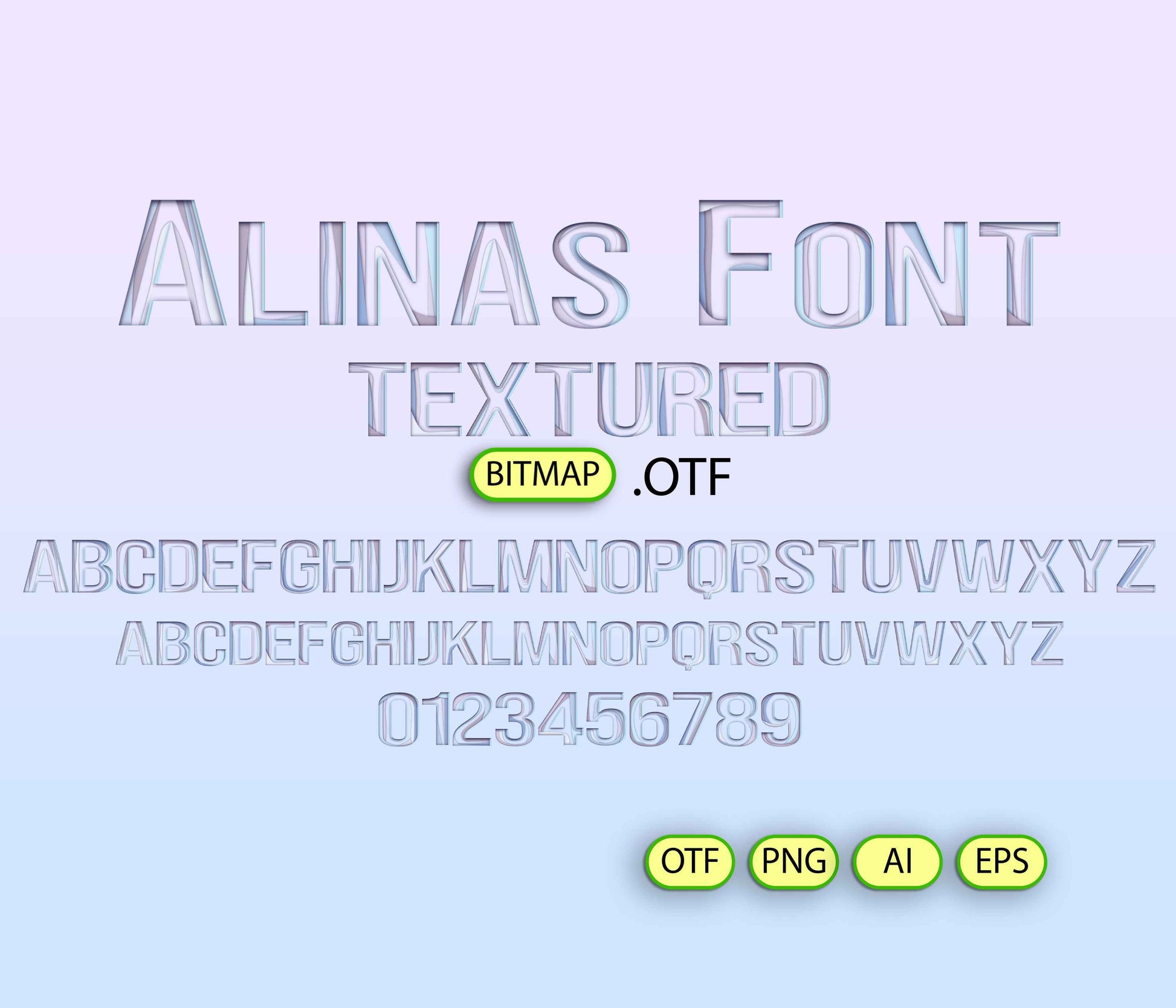
Paper Cut Elegance Font Textured
The Artistic Elegance of Paper Cut
Explore the delicate and intricate world of Paper Cut font, a typeface inspired by the refined art of paper cutting. This font embodies the precision and creativity of this traditional craft, where single sheets of paper are transformed into elaborate designs. Each character in the Paper Cut font is designed to reflect the clean lines, sharp edges, and the overall aesthetic elegance of paper art, making it perfect for projects that require a touch of sophistication and artistic detail.
What font is the Paper Cut font?
Picture a typeface that captures the essence of paper art in its purest form. Our Paper Cut font is meticulously crafted to mirror the subtleties and precision of paper cutting, featuring characters with clear, crisp contours and an overall aesthetic that speaks of craftsmanship and attention to detail. It includes an extensive character set, with alphabets, numbers, and special symbols, offering a comprehensive toolkit for a wide range of design projects, from elegant invitations to modern graphic designs.
What Can You Do With Paper Cut font?
The Paper Cut font is versatile and perfect for various creative applications:
- Elegant Event Invitations: Ideal for crafting sophisticated invitations for weddings, art exhibitions, or formal events.
- Graphic Design and Branding: Perfect for creating unique logos, business cards, and branding materials that require a touch of elegance.
- Digital Content and Social Media: Use the font to add a refined and artistic touch to websites, blogs, and social media posts.
- Editorial Design: Enhance the visual appeal of magazines, brochures, and publications with this stylish font.
- Interior Decor: Create stunning wall art, decals, or signage that exudes creativity and sophistication.
- Promotional Materials: Incorporate the font into marketing campaigns for luxury products, art galleries, or creative services.
- Crafting and DIY Projects: Ideal for scrapbooking, card making, and other artistic projects that require a delicate and detailed font.
- Fashion and Merchandise Design: Design labels, tags, and packaging for fashion brands or products that value artistry and elegance.
- Educational Materials: Use in teaching resources to inspire creativity and art appreciation.
- Event Signage: Develop eye-catching signs and banners for cultural events, craft fairs, or art shows.